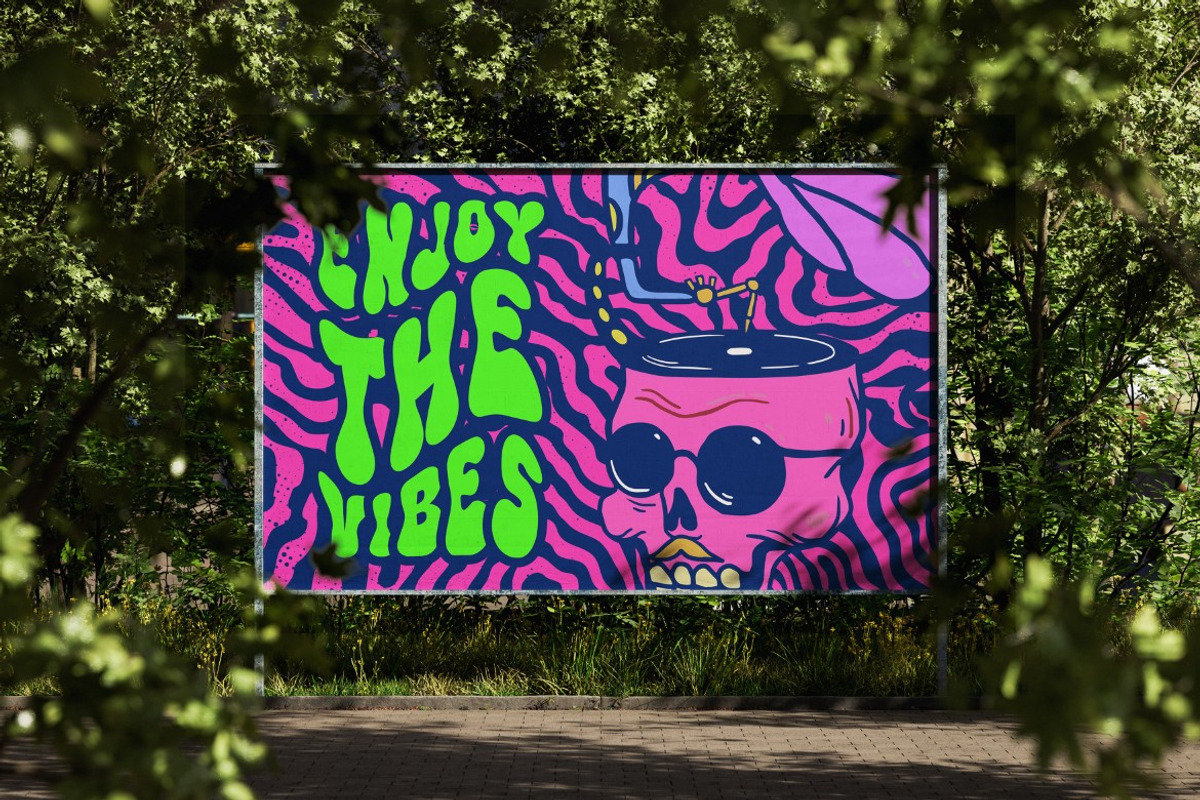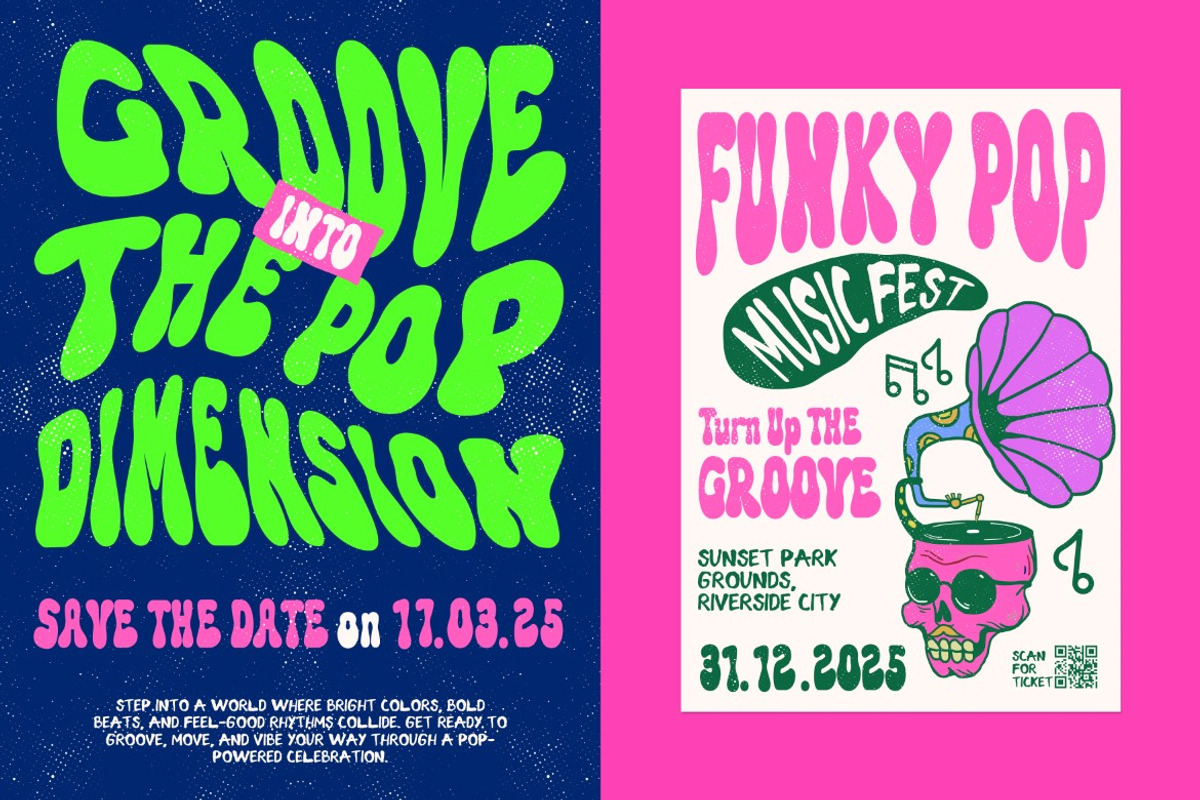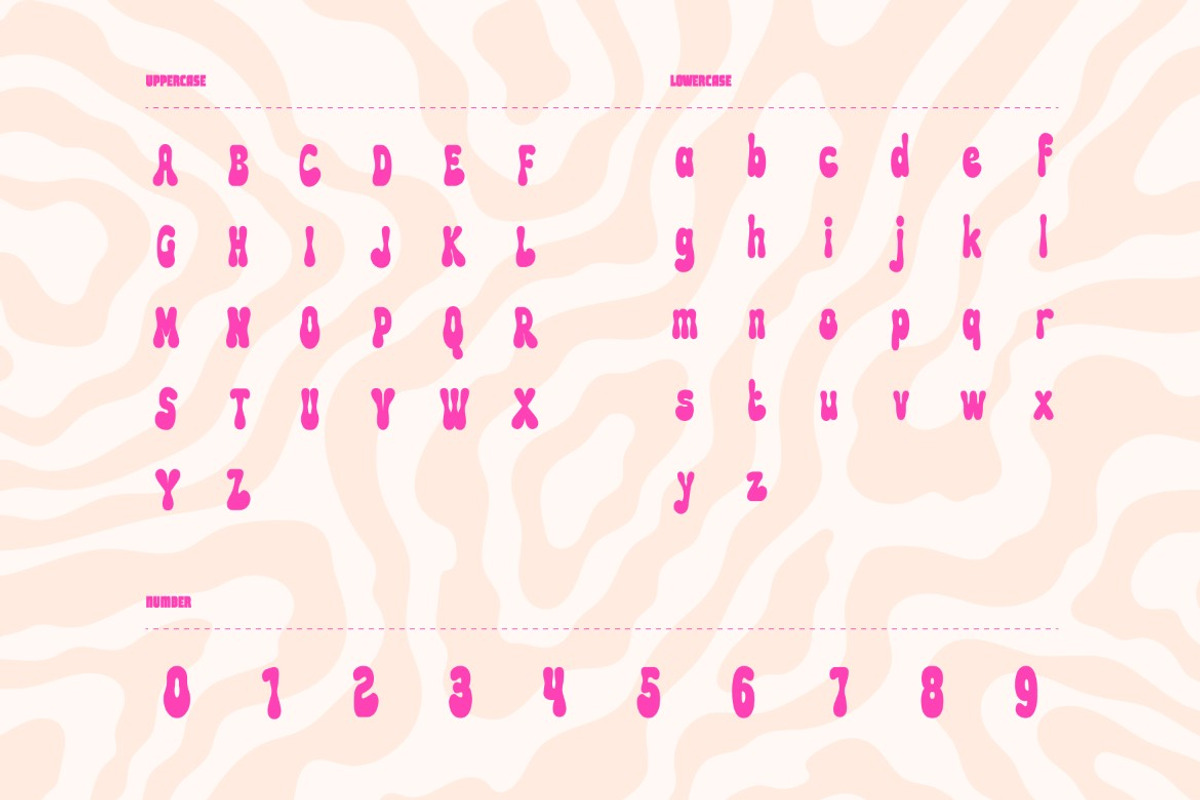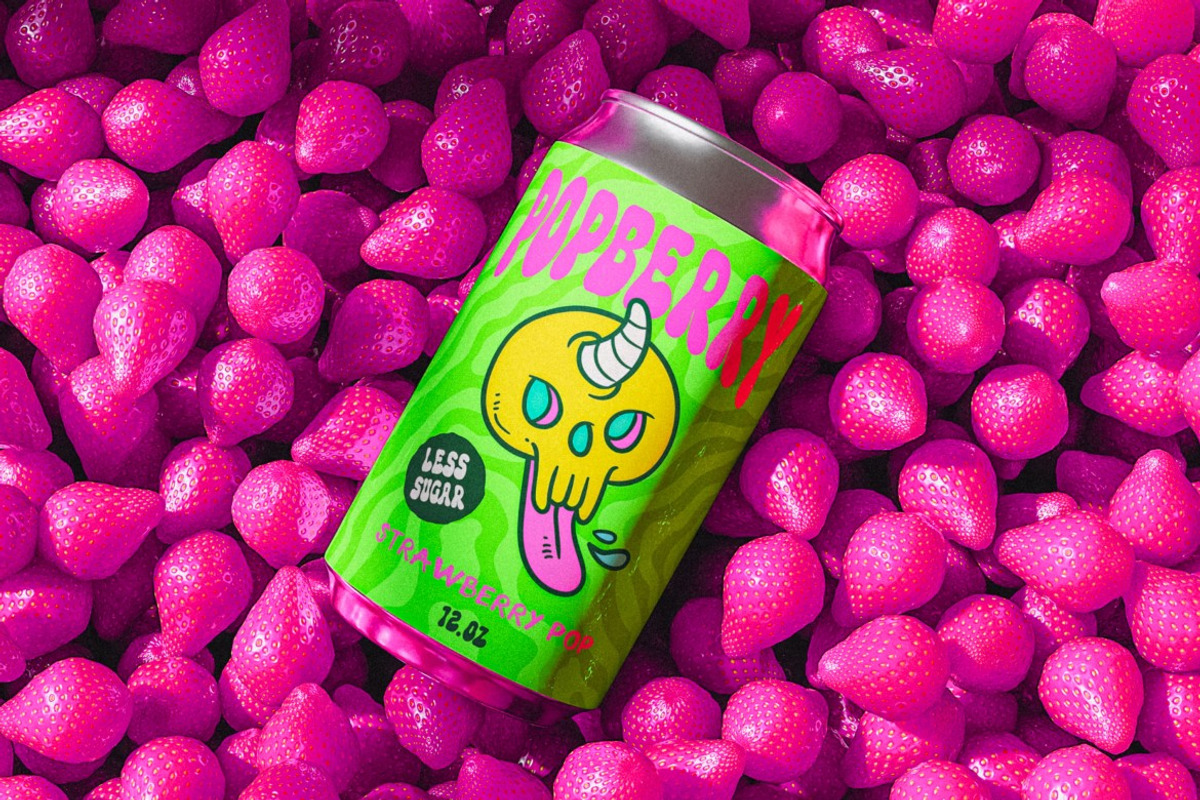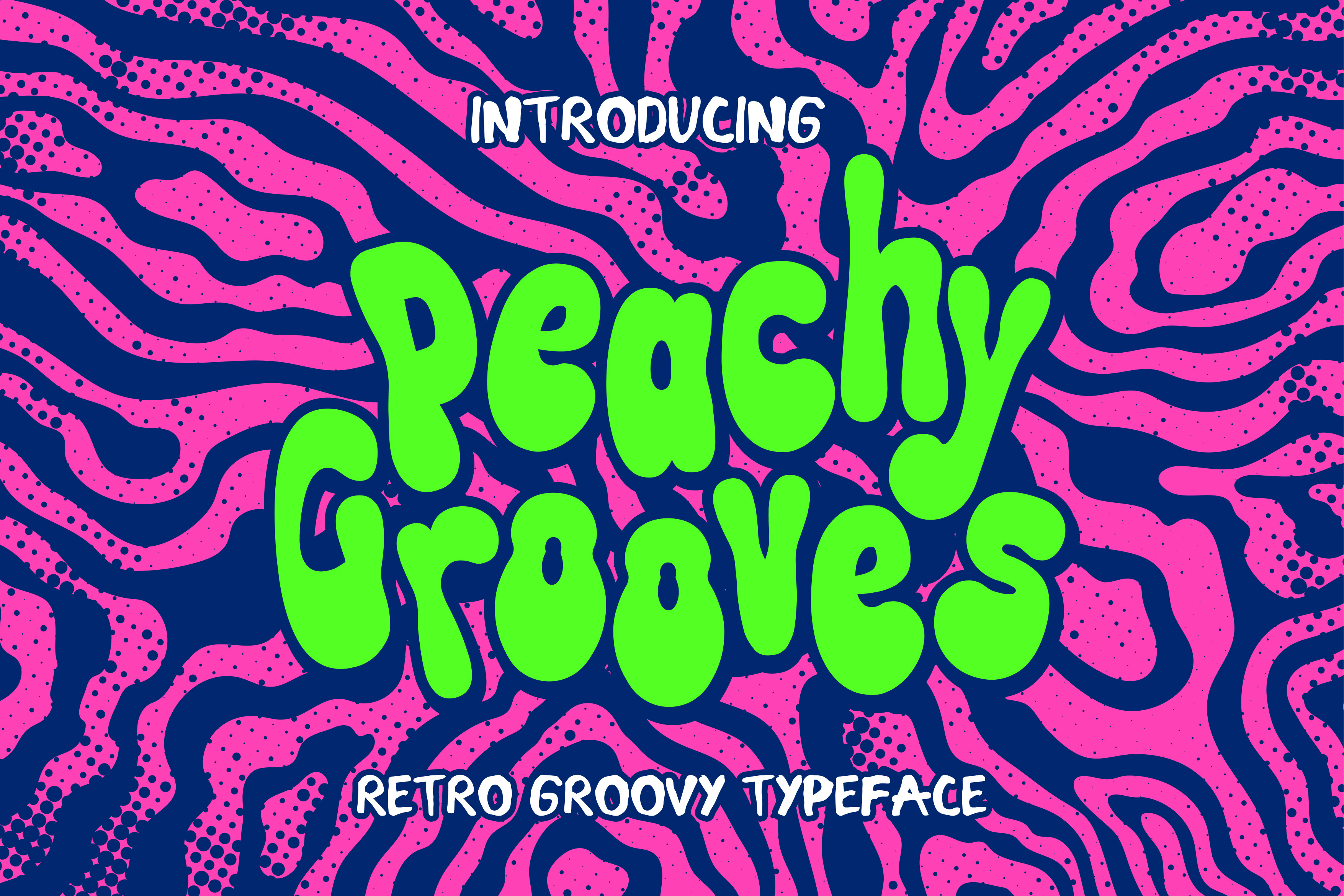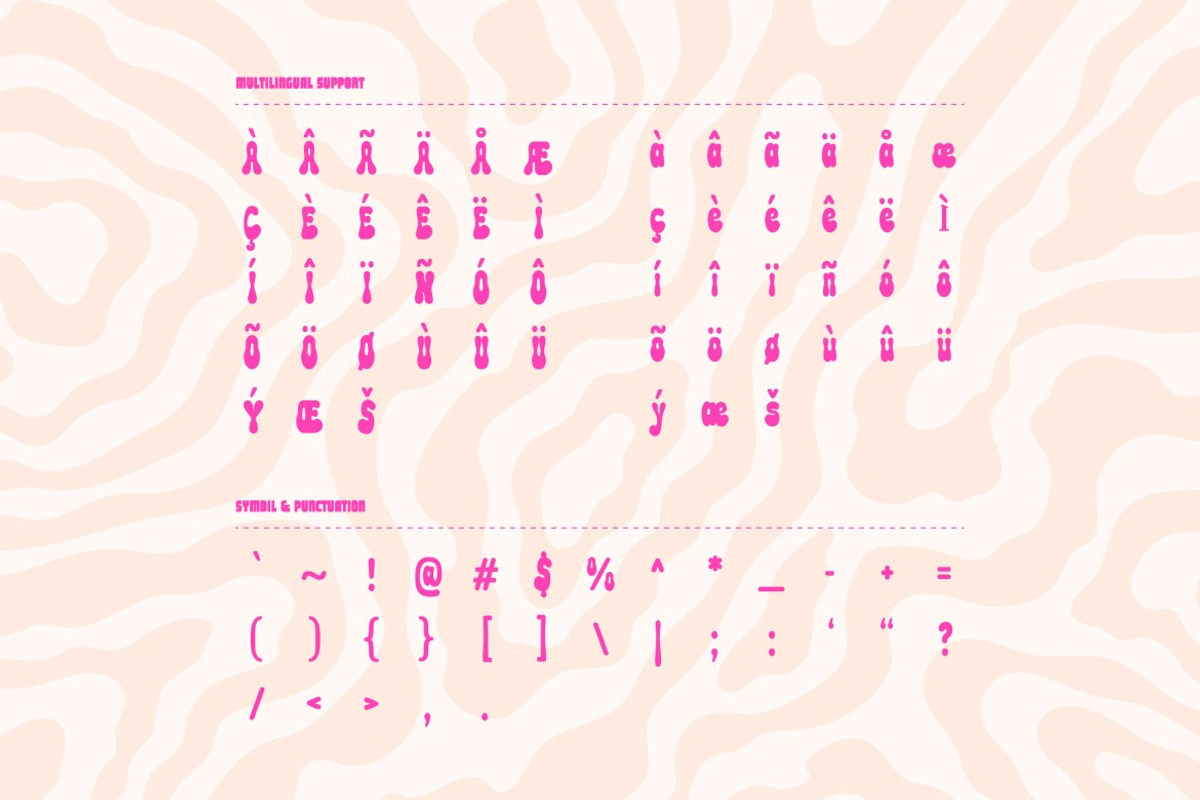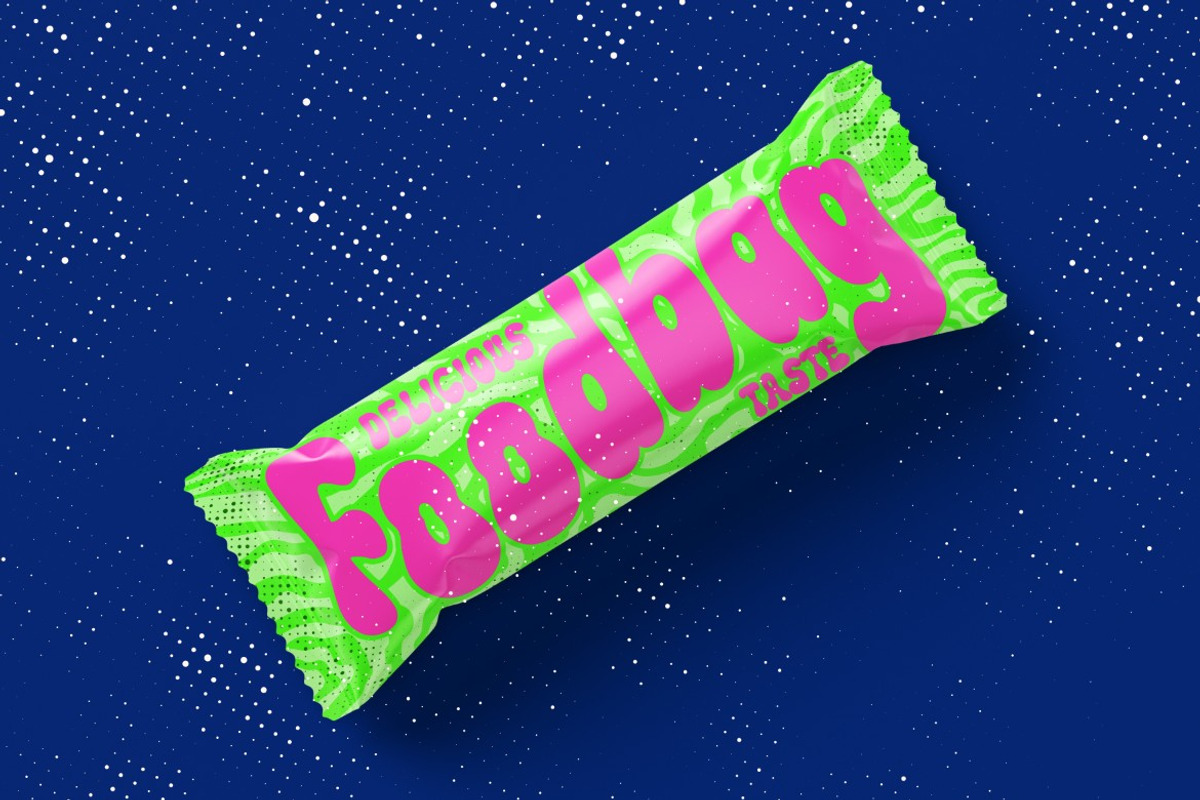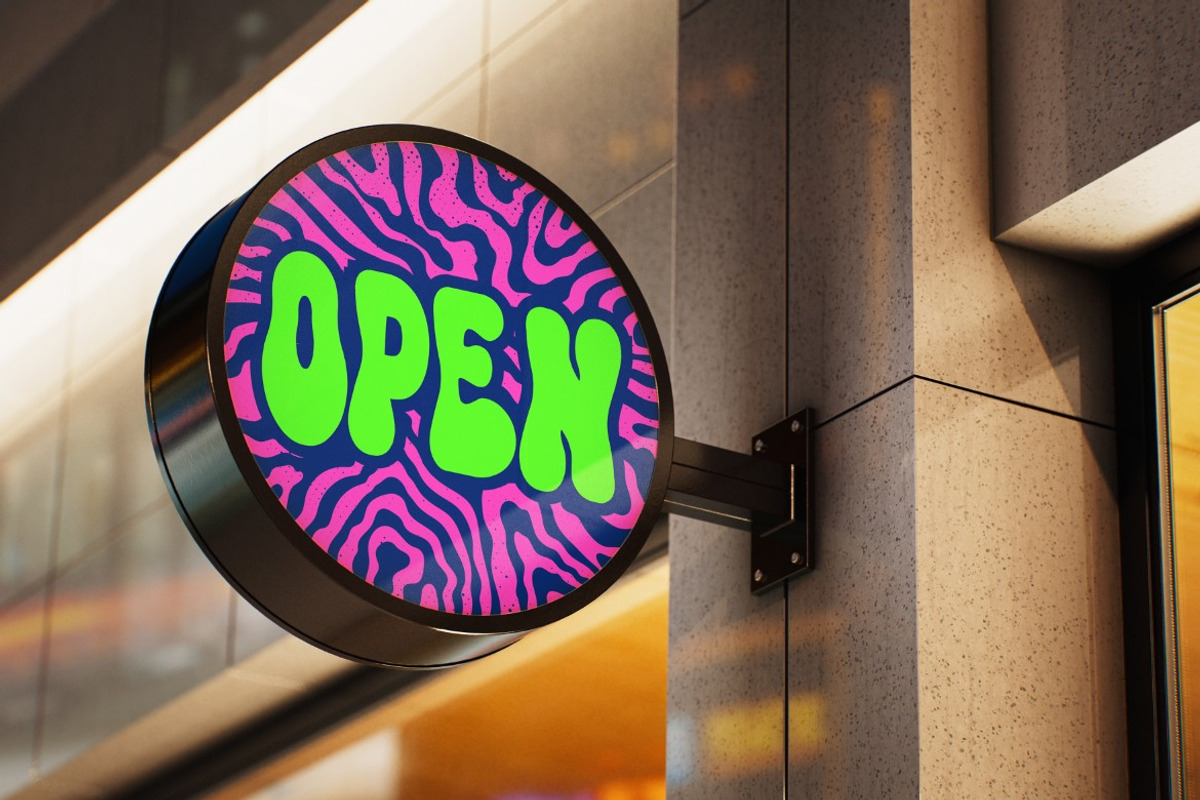
Peachy Grooves – Retro Display Font
Peachy Grooves is a bold retro display font filled with playful curves and fun characters. Perfect for posters, branding, products, and vibrant creative projects, this cool typeface brings a fun, 70s-inspired atmosphere that instantly stands out. Ideal for designers seeking eye-catching, colorful, and energetic typography for a modern retro aesthetic.